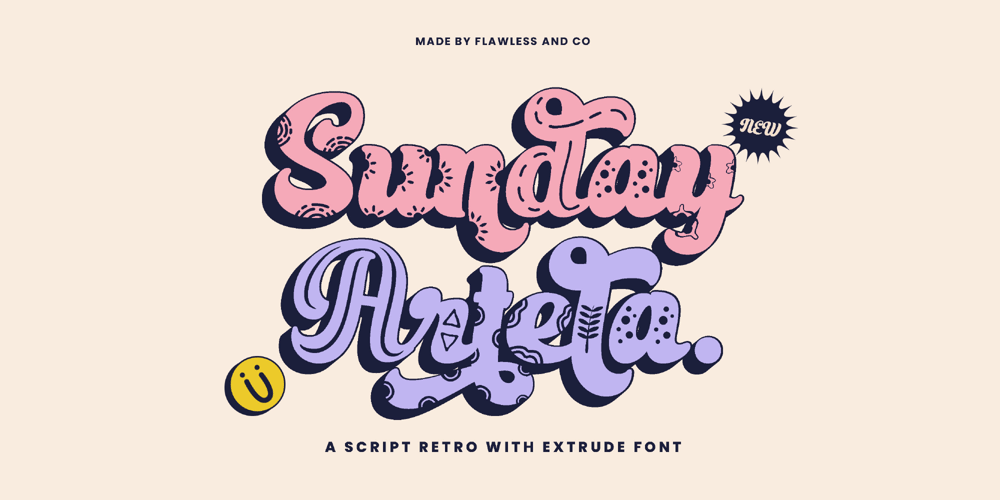
Sunday Artela Font Family was designed by Achmad Yani and published by Flawlessandco. Sunday Artela contains 3 styles and family package options. Introducing “Sunday Artela,” a font that effortlessly blends playful script elements with a retro charm, creating a nostalgic yet contemporary feel. This unique typeface doesn’t just stop at capturing attention — it transports your designs to a world where every letter tells a story. Sunday Artela doesn’t just bring letters to life; it introduces a dynamic trio of styles — regular, solid, and fun — adorned with patterns in fun styles that add an extra layer of delight to your designs.There’s some connected letters and some alternates that suitable for any graphic designs such as branding materials, t-shirt, print, business cards, logo, poster, t-shirt, photography, quotes .etcThis font support for some multilingual. Also contains uppercase A-Z and lowercase a-z, alternate character, numbers 0-9, and some punctuation.If you need help, just write me! Thanks so much for checking out my shop!